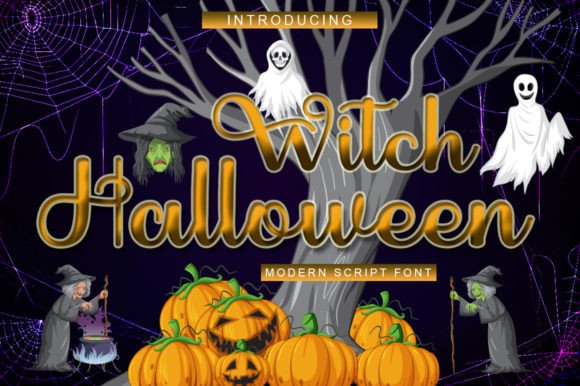
Enter the captivating world of Witch Halloween Font, a whimsical and enchanting script typeface that adds a touch of magic to your creative projects. Crafted by the talented Letter Muray, this font family embodies the essence of Halloween, with its playfully handwritten style and a dash of spooktacular charm.
Unleash your creativity with Witch Halloween Font, a perfect choice for those seeking unique and eye-catching fonts for their Silhouette projects. Its carefully crafted characters dance across the page, reminiscent of a mischievous witch's spellbook. Add a touch of enchantment to your invitations, greeting cards, posters, and social media graphics with this captivating font.
With Witch Halloween Font, you'll embark on a journey of imagination, where your designs take center stage. Its charming personality shines through in every letter, capturing the essence of the Halloween spirit. Let your creativity soar as you explore the endless possibilities this font offers.
Discover the power of self-expression with Witch Halloween Font. Its free-flowing style invites you to create designs that speak to your heart. Whether you're a seasoned designer or just starting your artistic journey, this font will empower you to create captivating visuals that leave a lasting impression.
Embark on a magical adventure with Witch Halloween Font. Let its enchanting characters guide you towards captivating designs that ignite your imagination and leave your audience spellbound. Embrace the spirit of Halloween and let your creativity take flight.